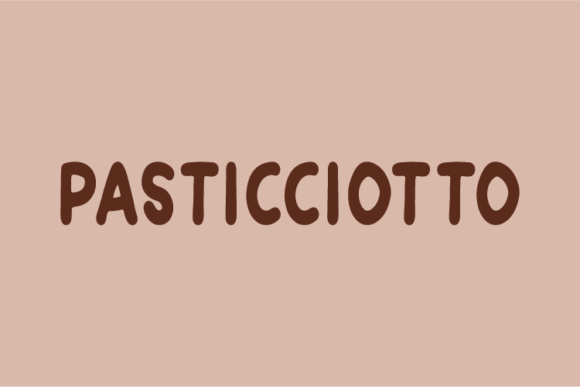
Discover Pasticciotto: The Remarkable Display Font That Speaks Volumes!
Step into the world of Pasticciotto, a display font that exudes a blend of uniqueness and charm. Crafted by the talented Hanna Bie, Pasticciotto stands apart with its untouched node indentations in each character, granting it a personality that's both intriguing and captivating. This font is a visual feast, perfect for adding a touch of individuality to your creative endeavors.
With Pasticciotto as your design companion, breathe life into your words. Create captivating quotes that jump off the page, leaving an imprint on the hearts of your readers. Design notes that invite introspection and ignite creativity. Unleash your inner artist and bring to life eye-catching t-shirt designs that speak to your soul. Transform your digital dreams into reality by incorporating Pasticciotto into your product designs, leaving a lasting impression on your customers.
Pasticciotto's versatility doesn't end there. It seamlessly blends into a variety of digital and physical mediums, making it a versatile asset in any designer's toolkit. Unleash your inner creativity and let Pasticciotto guide you on a journey of artistic exploration.
So, what are you waiting for? Embark on this creative adventure with Pasticciotto today. Discover a world of endless possibilities and transform your designs into captivating masterpieces that communicate with eloquence and flair. Pasticciotto is more than just a font; it's an expression of your individuality and an invitation to explore the boundless realm of creativity.